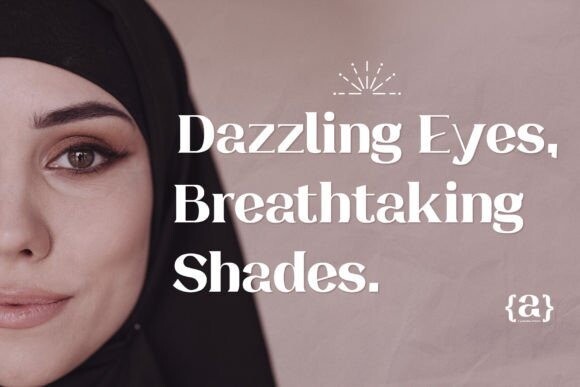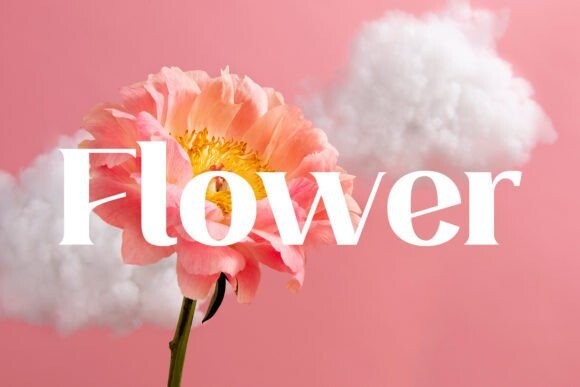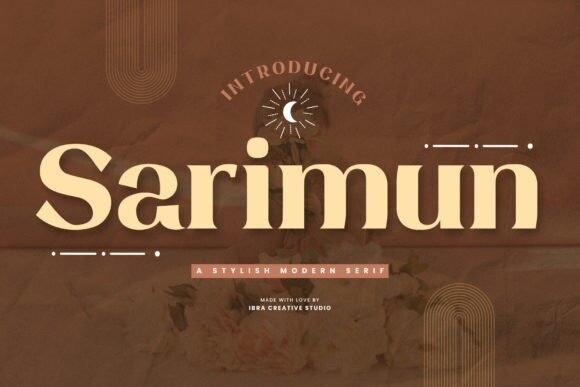
Sarimun Font
Sarimun Font is a sleek and contemporary serif typeface that effortlessly combines classic elegance with a modern aesthetic. With its refined lines and well-balanced letterforms, Sarimun exudes a timeless sophistication while also embracing a distinct contemporary flair. The font’s clean, geometric shapes and sharp serifs give it a polished and stylish appearance, making it an excellent choice for design projects that demand a harmonious blend of tradition and innovation.